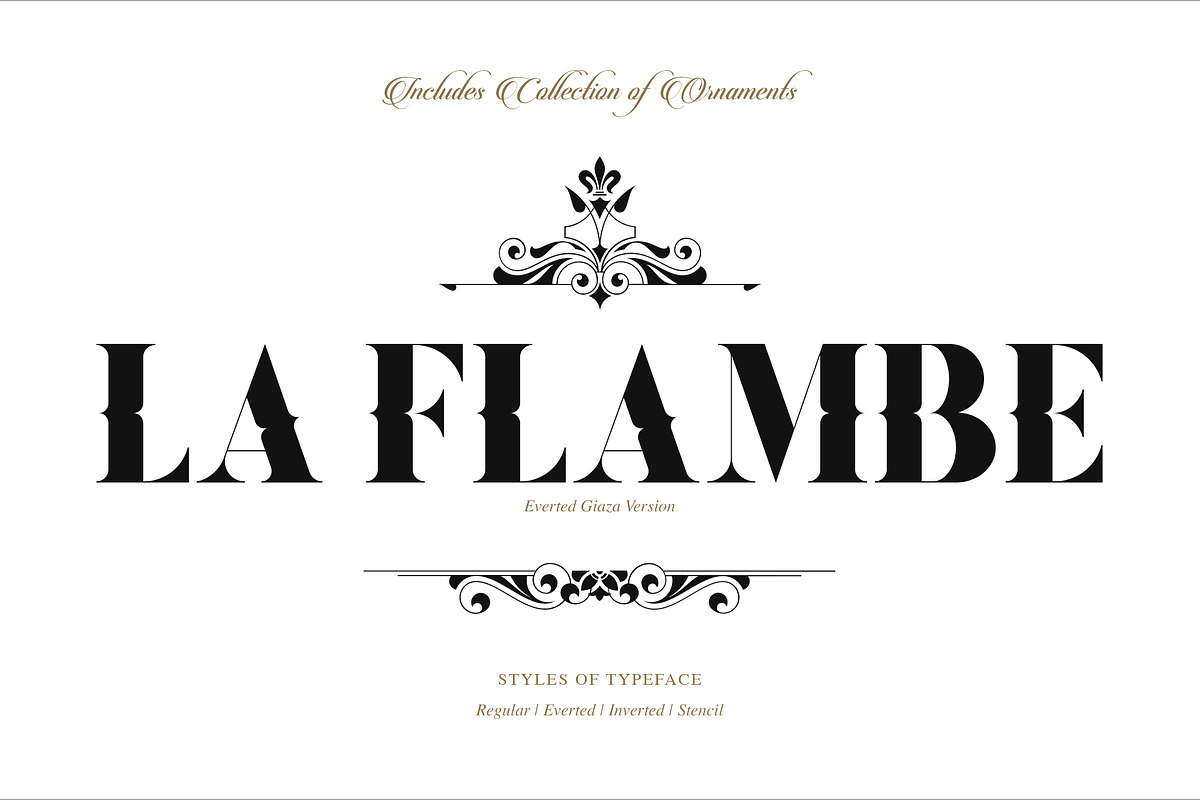
Gaze Pro
Gaze Pro Typeface – Didot Typeface with large application, containing 650 characters
190 Character Swashes - Limitless letter combinations for consistent balance
Everted & Inverted Alternates - A variety of themes to ensure suitability (Restaurants, Hotels etc.)
Discretionary Ligatures - A style in keeping with the Swashes
Ornaments - A variety of Art Deco Gyphs to assist the aesthetics of the typeface
Oldstyle Numeral Alternates - More suitable when used with lowercase letters
Fractions & Ordinals
Standard Alternates
Multiple Language support
Gaze Pro is a multilingual typeface to suit many applications, Editorial, Weddings, Restaurants etc. Most suitable as a display font, the main focus was to include as many indulgent aspects as possible, with 190 swashes for example, without compromising the legibility.